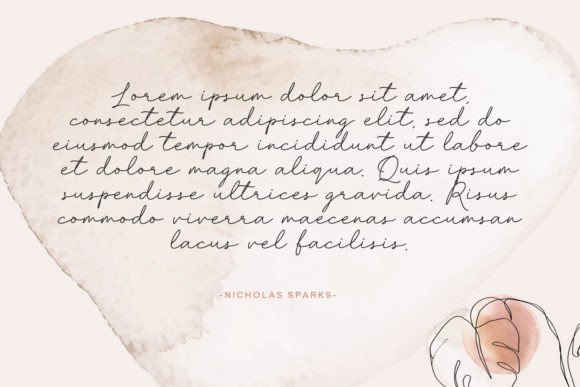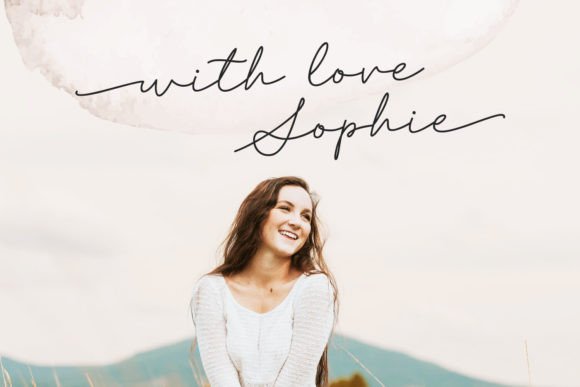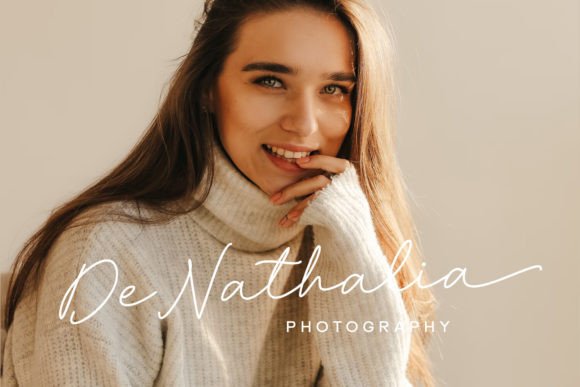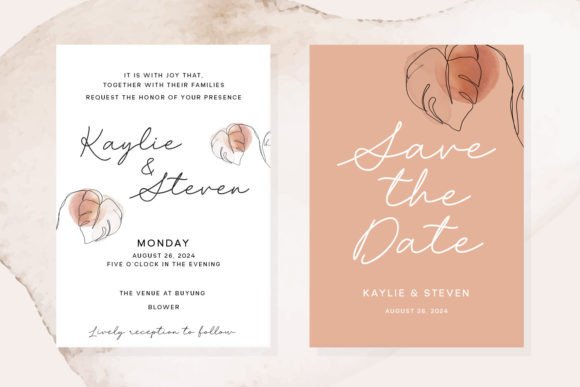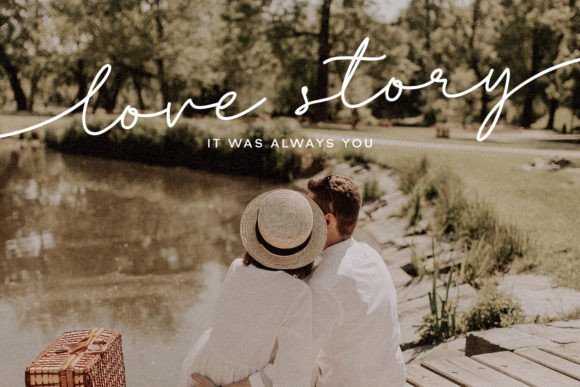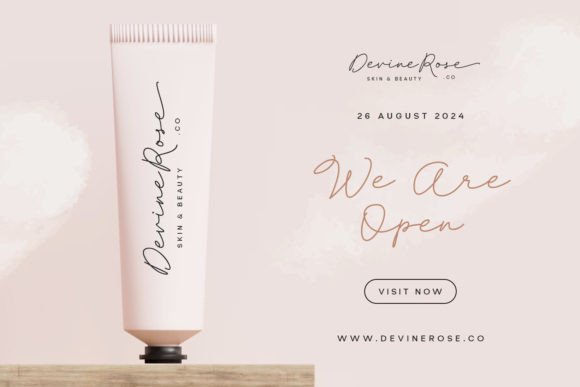
The Flashline Font: A Modern Script Font for Creative Projects
I’ll never forget the time I was working on a branding project for a trendy new cafe. My client wanted a font that was both elegant and energetic, but I was struggling to find the perfect fit. That’s when I stumbled upon the Flashline font, and it instantly became the star of the show. In this article, I’ll share my experience with Flashline, its features, and how to make the most of it in your design projects.
What is Flashline Font?
Flashline is a modern and dynamic script font that features graceful forms with curved terminals, creating the impression of elegant yet energetic handwriting. It’s perfect for branding, logos, invitations, or design projects that aim to convey a casual yet professional vibe. Flashline exudes a light, modern feel, with subtle contrasts in each stroke, making it easy to read while maintaining a bold artistic appearance.
My Honest Review of Flashline
Here’s what I love about Flashline:
- ✨ Elegant yet energetic feel, perfect for creative projects
- ✅ Extensive OpenType features, including glyphs and stylistic alternates
- ✅ Works well for both digital and print designs
And here are some small quirks to keep in mind:
- ⚠️ Some characters may require manual kerning for optimal spacing
- 🤔 Limited availability of certain special characters
Flashline was designed with the goal of creating a modern script font that’s both elegant and energetic. The designer drew inspiration from traditional calligraphy and handwriting, with a focus on creating a font that’s highly legible and versatile. Whether you’re working on a branding project, invitation, or social media graphic, Flashline is a great choice.
| What is the best use for Flashline font? | Flashline is perfect for branding, logos, invitations, or design projects that aim to convey a casual yet professional vibe. |
| Does Flashline support OpenType features? | Yes, Flashline supports OpenType features, including glyphs and stylistic alternates, which can be accessed through compatible design software. |